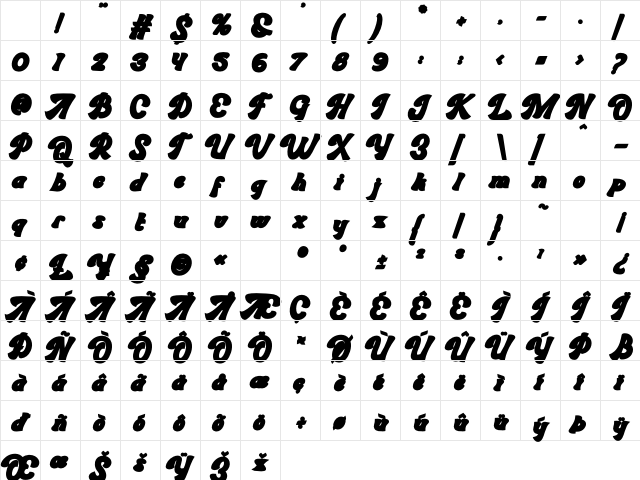
Complete Sweet Joys Outline glyph index. Displaying only characters natively supported by Sweet Joys Outline font.
Sweet Joys is built around its visual character rather than neutral utility - its distinctive forms are designed to make an impression at display sizes.